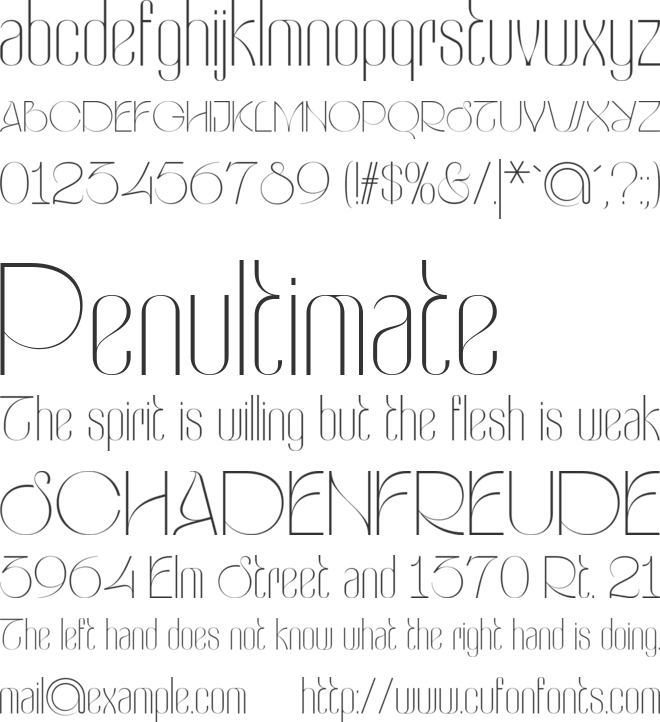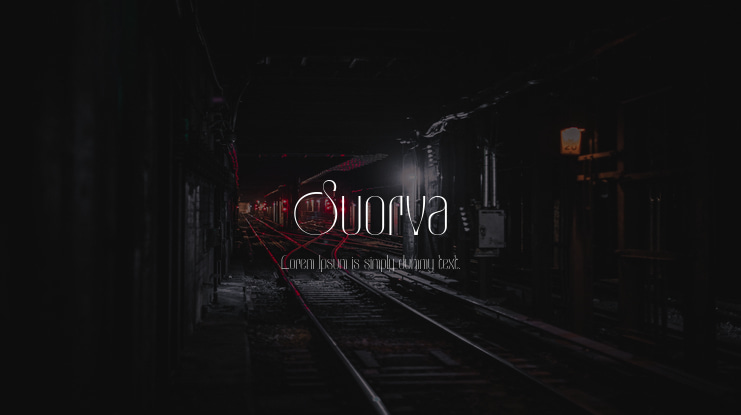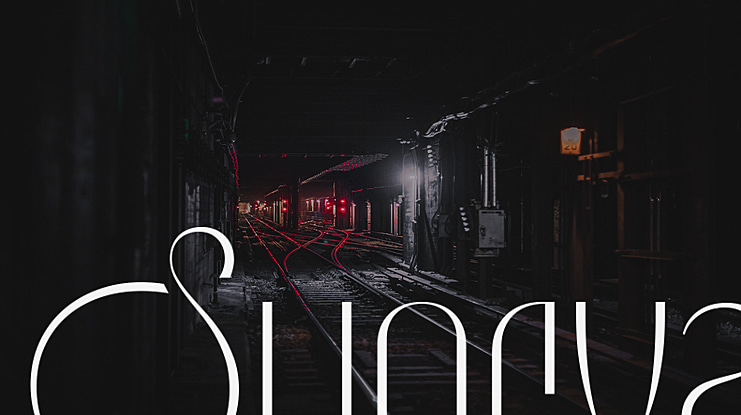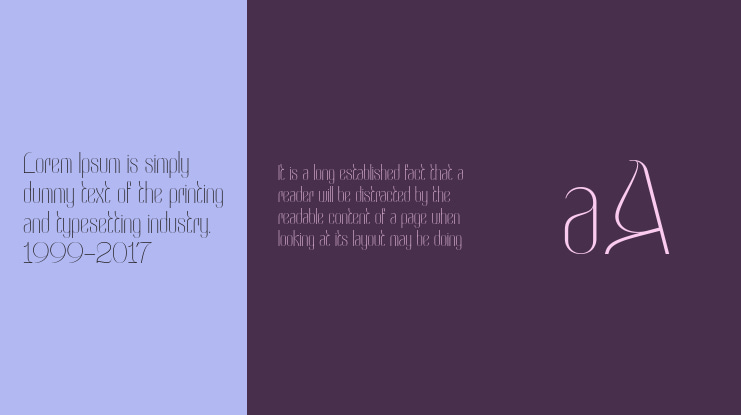
Suorva Font
Suorva from the sans serif family is made for display needs. Each side of his body is well-measured and consistent. Has a Stylistic Alternate Set ( S, Y, a, e, g, k, y) and also Discretionary Ligatures (uppercase).
Suorva Typeface by Sign Studio